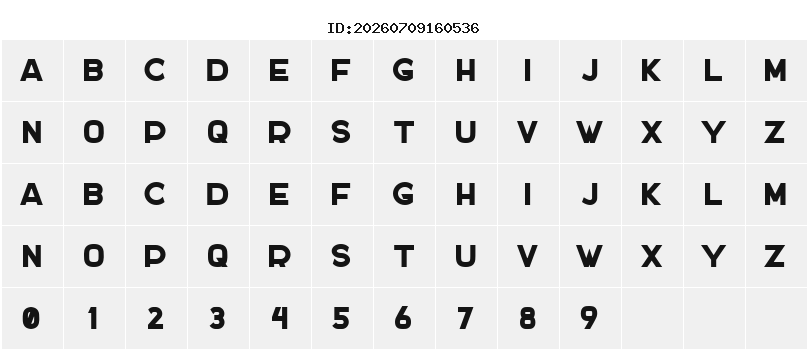
• Designer: Slava "Designvamp" Krivonosov
About DOCKER ONE.ttf
DOCKER ONE.ttf is a modern, elegant sans-serif font designed for ultimate readability and visual harmony. Perfect for branding, headlines, web design, and print materials.